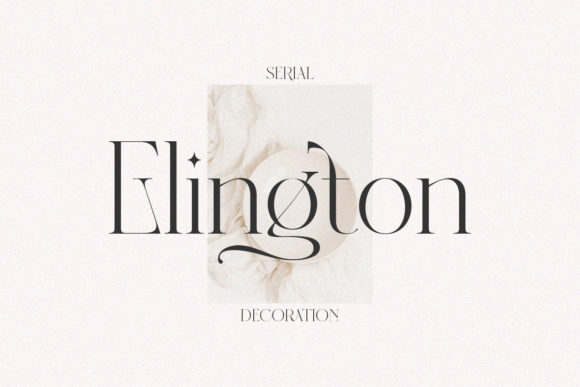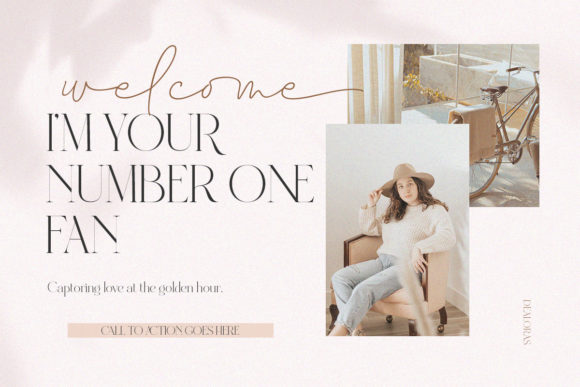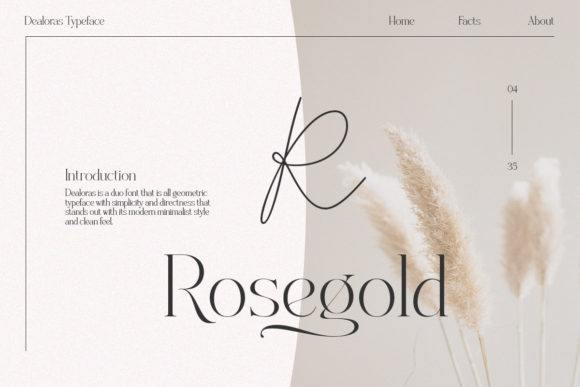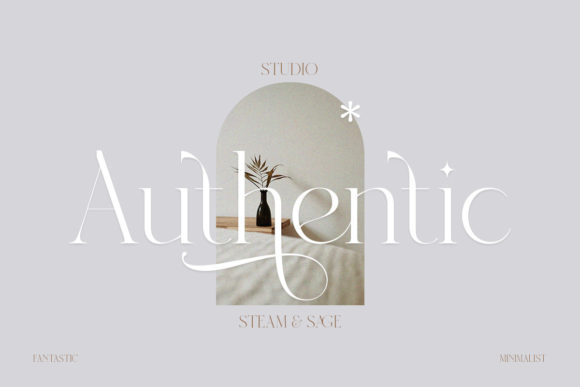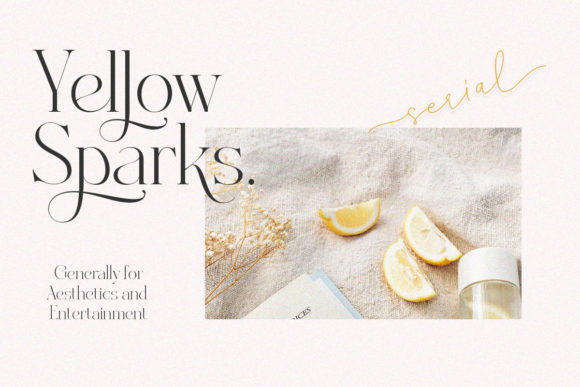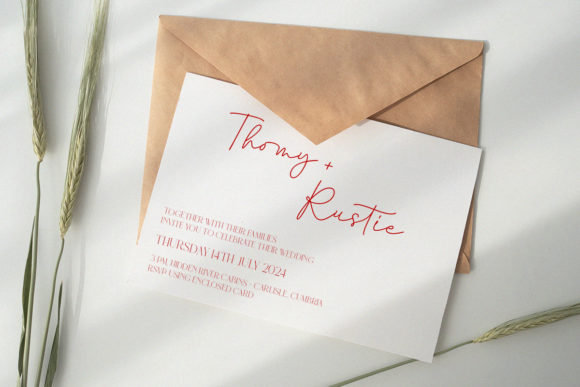
Introducing Dealoras Trio Font: Elevate Your Designs with Elegance
Are you a designer or crafter looking for a font that can add a touch of sophistication and style to your creations? Look no further than Dealoras Trio Font, a versatile and elegant trio font that is sure to become a valuable asset in your font library.
What is Dealoras Trio Font?
Dealoras Trio Font is a unique and stylish font that consists of three complementary fonts: a display font, a serif font, and a script font. This trio font is designed to provide you with a range of options for your designs, allowing you to create a cohesive look that is both elegant and sophisticated.
Key Features of Dealoras Trio Font
- PUA Encoded: Dealoras Trio Font is PUA (Private Use Area) encoded, which means that you can access all of the glyphs and swashes with ease. This makes it simple to use the font in your designs and to create beautiful, unique text.
- Three Complementary Fonts: The trio font consists of a display font, a serif font, and a script font, providing you with a range of options for your designs.
- Stylish and Elegant: Dealoras Trio Font is designed to be stylish and elegant, making it perfect for a range of design applications, from luxury brands to wedding designs.
Why Choose Dealoras Trio Font?
There are many reasons why Dealoras Trio Font is an excellent choice for designers and crafters. Here are just a few:
- Versatility: The trio font can be used for a wide range of design applications, from logos and branding to wedding designs and more.
- Elegance: The font is designed to be elegant and sophisticated, making it perfect for designs that require a touch of luxury.
- Time-Saving: With Dealoras Trio Font, you can create beautiful text with ease, saving you time and effort in your design work.
- Unique: The font’s unique design and PUA encoding make it stand out from other fonts, ensuring that your designs will be noticed.
- Choose Your Font: Select the font that best suits your design needs. The display font is perfect for headlines, while the serif font is great for body text. The script font can be used for adding a touch of elegance to your designs.
- Experiment with Different Combinations: Don’t be afraid to experiment with different font combinations to create a unique look that suits your design.
Design Applications for Dealoras Trio Font
Dealoras Trio Font can be used for a wide range of design applications, including:
- Branding and Logos: The font’s elegant and sophisticated design makes it perfect for luxury brands and high-end logos.
- Wedding Designs: The script font is perfect for wedding designs, such as invitations, programs, and more.
- Advertising: The display font can be used to create eye-catching headlines and advertisements.
- Packaging: The font can be used for packaging design, adding a touch of elegance to product labels and packaging.
Dealoras Trio Font is a versatile and elegant font that is sure to become a valuable asset in your font library. With its PUA encoding, three complementary fonts, and stylish design, it’s perfect for a wide range of design applications. Whether you’re a designer or crafter, Dealoras Trio Font is a great choice for adding a touch of sophistication and elegance to your creations.